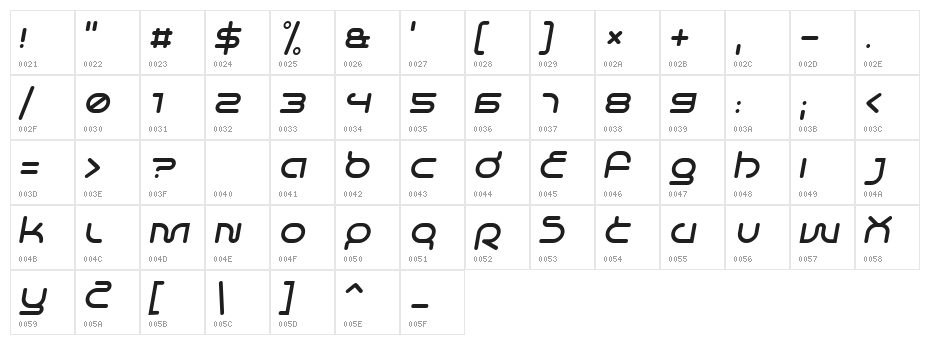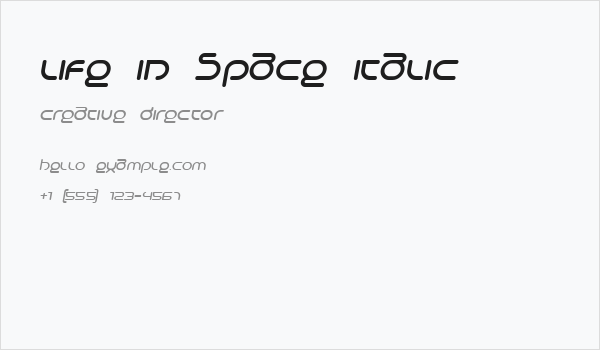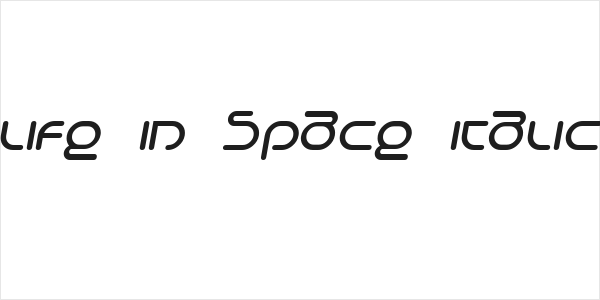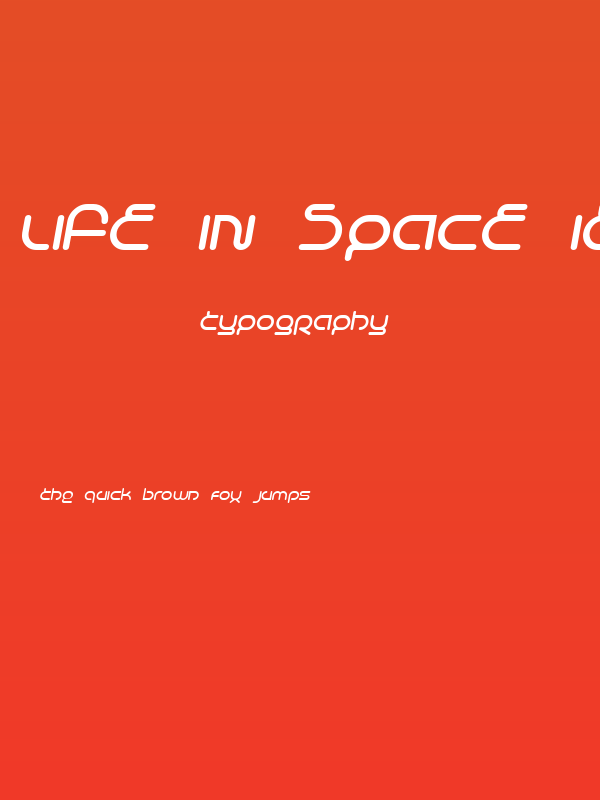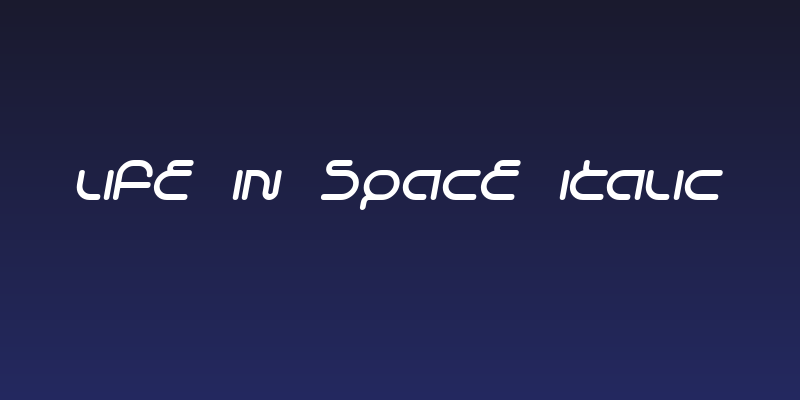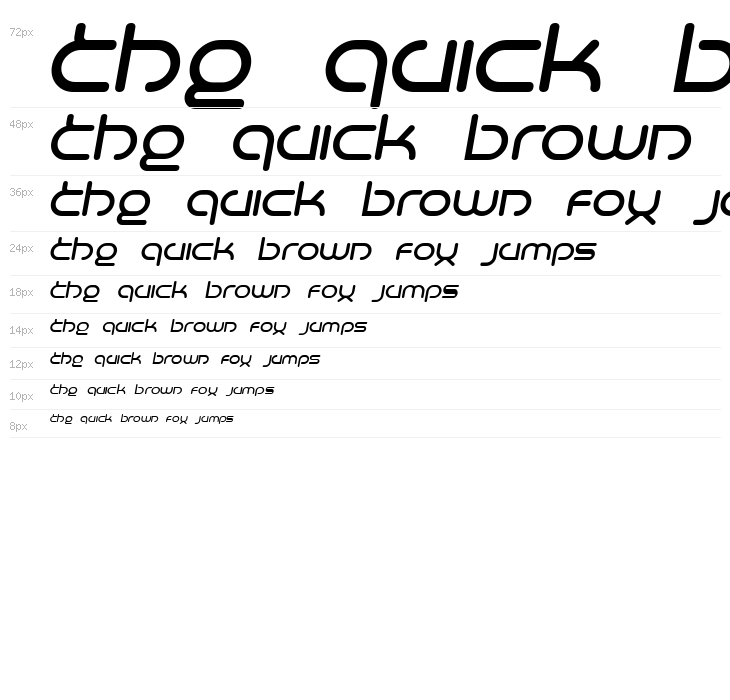
Life in Space Italic Font
Life in Space Italic Description
This font features a futuristic and sleek design with rounded edges and a consistent stroke width. The characters are slightly italicized, giving a sense of motion and modernity. The lowercase letters have a unique curvature, particularly noticeable in the 'a', 'e', and 'g', which adds a distinctive flair. Uppercase letters maintain a uniform height, contributing to a clean and organized appearance. The numerals are clear and easy to read, with a similar rounded style that complements the alphabetic characters. Special characters are well-integrated, maintaining the overall aesthetic of the font.
| Use Case | Headlines, Logos, Digital interfaces |
| Proposed Projects | Ideal for sci-fi themed projects, technology branding, modern posters, and digital interfaces. |